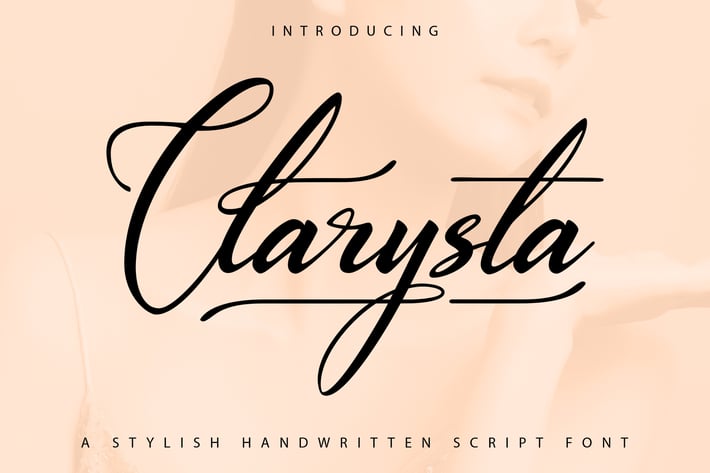
Clarystha | A Stylish Handwritten Font
Clarystha | A Stylish Handwritten Font with a calligraphy style, So beautiful on invitation like greeting cards, branding materials, business cards, quotes, posters, and more!